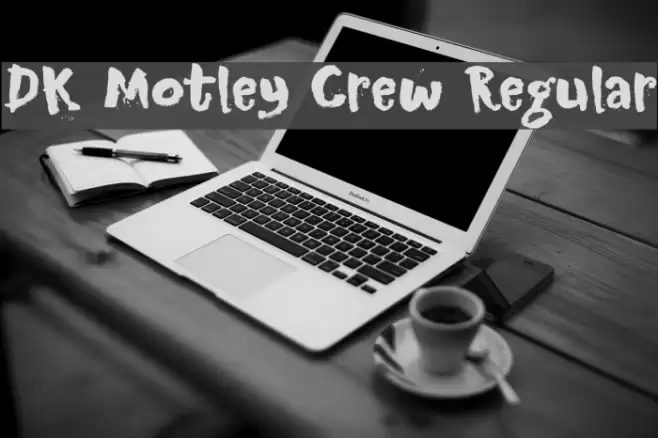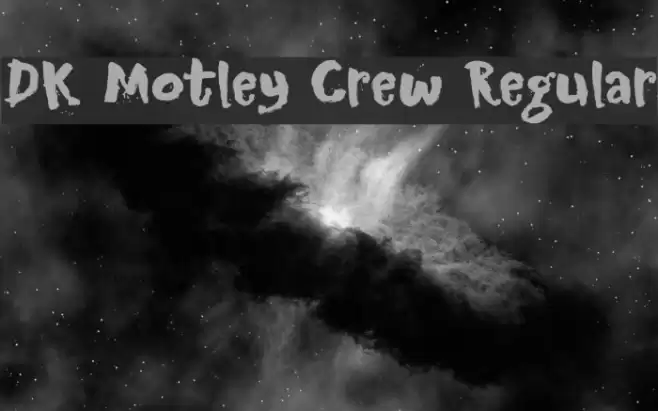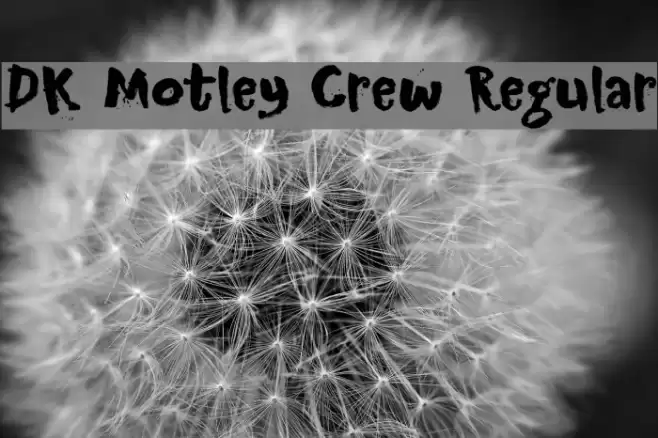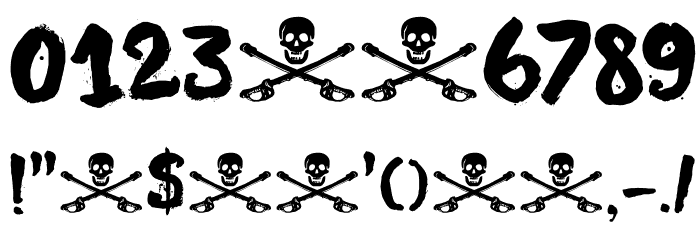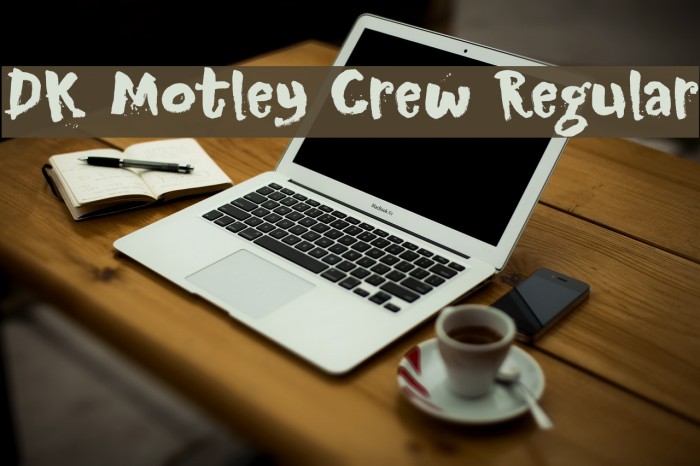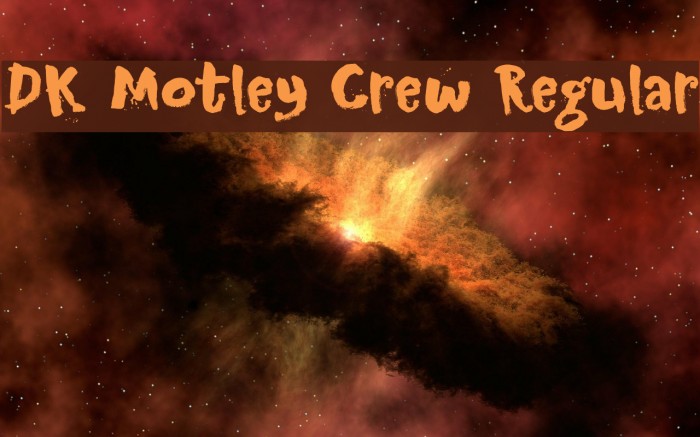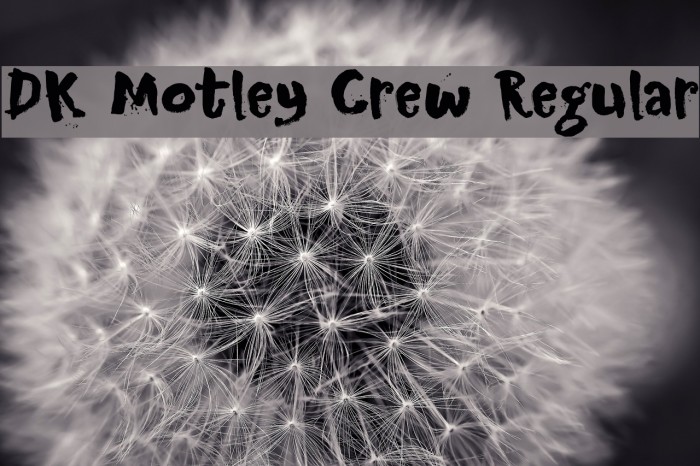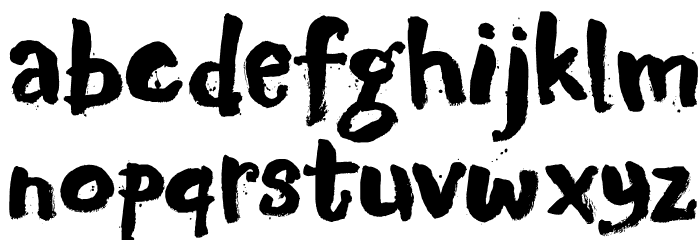
DK Motley Crew Regular Font
DK Motley Crew Regular Description
This font features a bold, distressed style with a hand-painted appearance. The characters are irregular and rugged, giving off a rebellious and edgy vibe. The uppercase and lowercase letters maintain a consistent rough texture, while the numbers and special characters incorporate unique pirate-themed elements like skulls and crossbones. The font's overall appearance is reminiscent of graffiti or street art, making it stand out with its bold and unconventional design.
A bold, distressed font with a rebellious, hand-painted style from Horror fonts.
- Proposed Projects: Ideal for music album covers, event posters, or any project needing a bold, edgy aesthetic.
- Use Case: Logos, Posters, Headlines